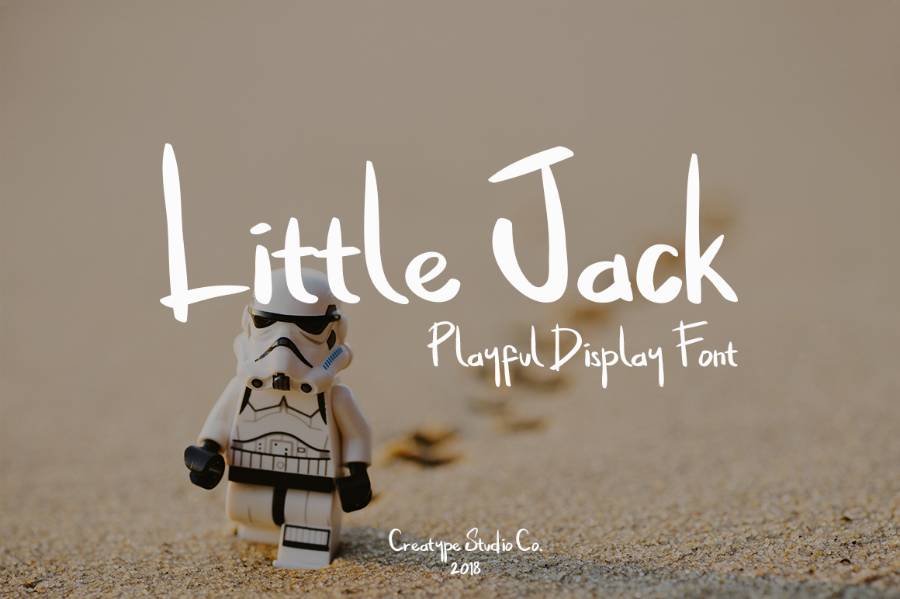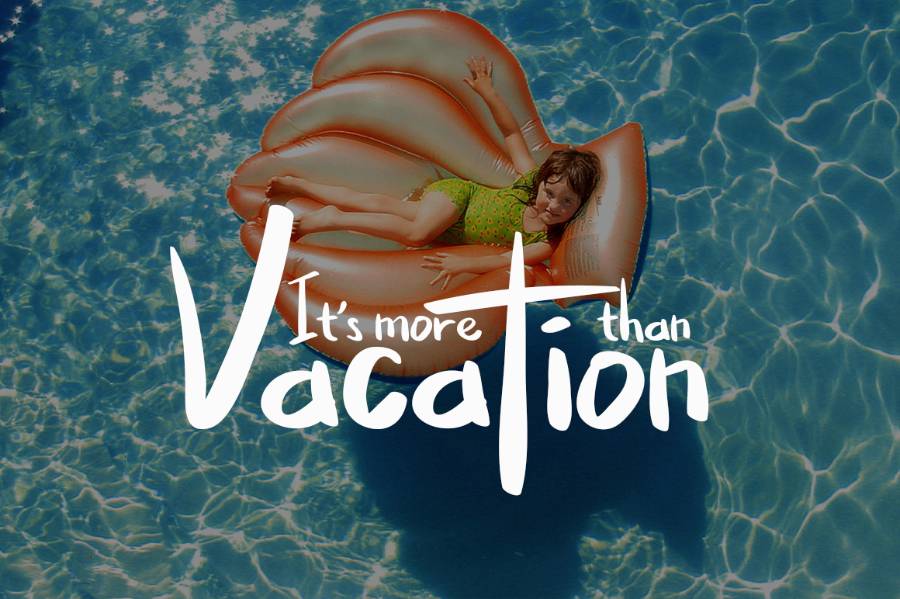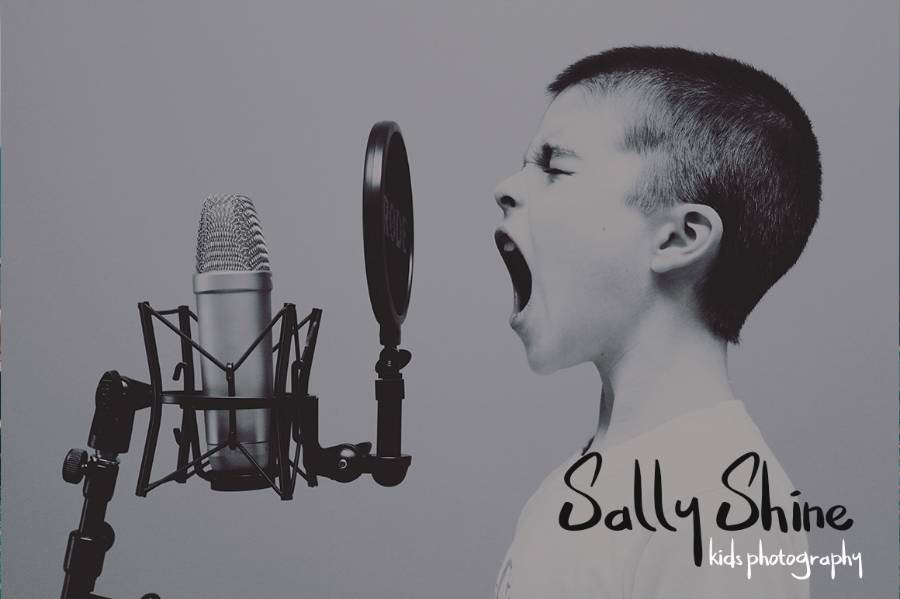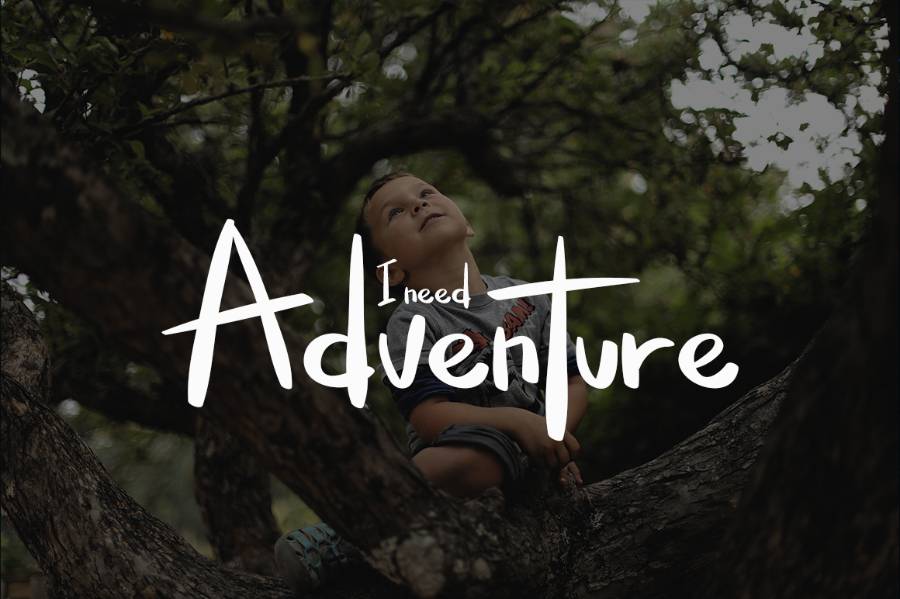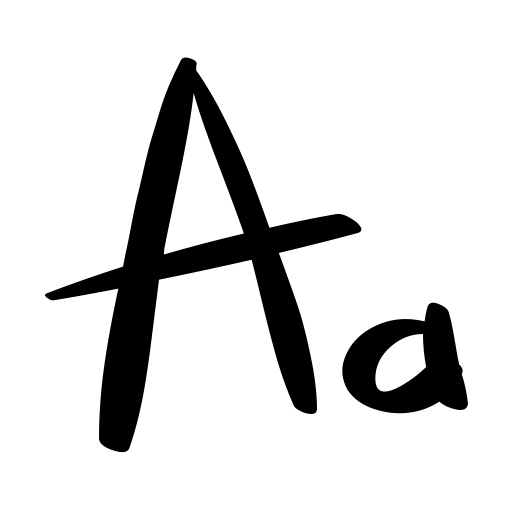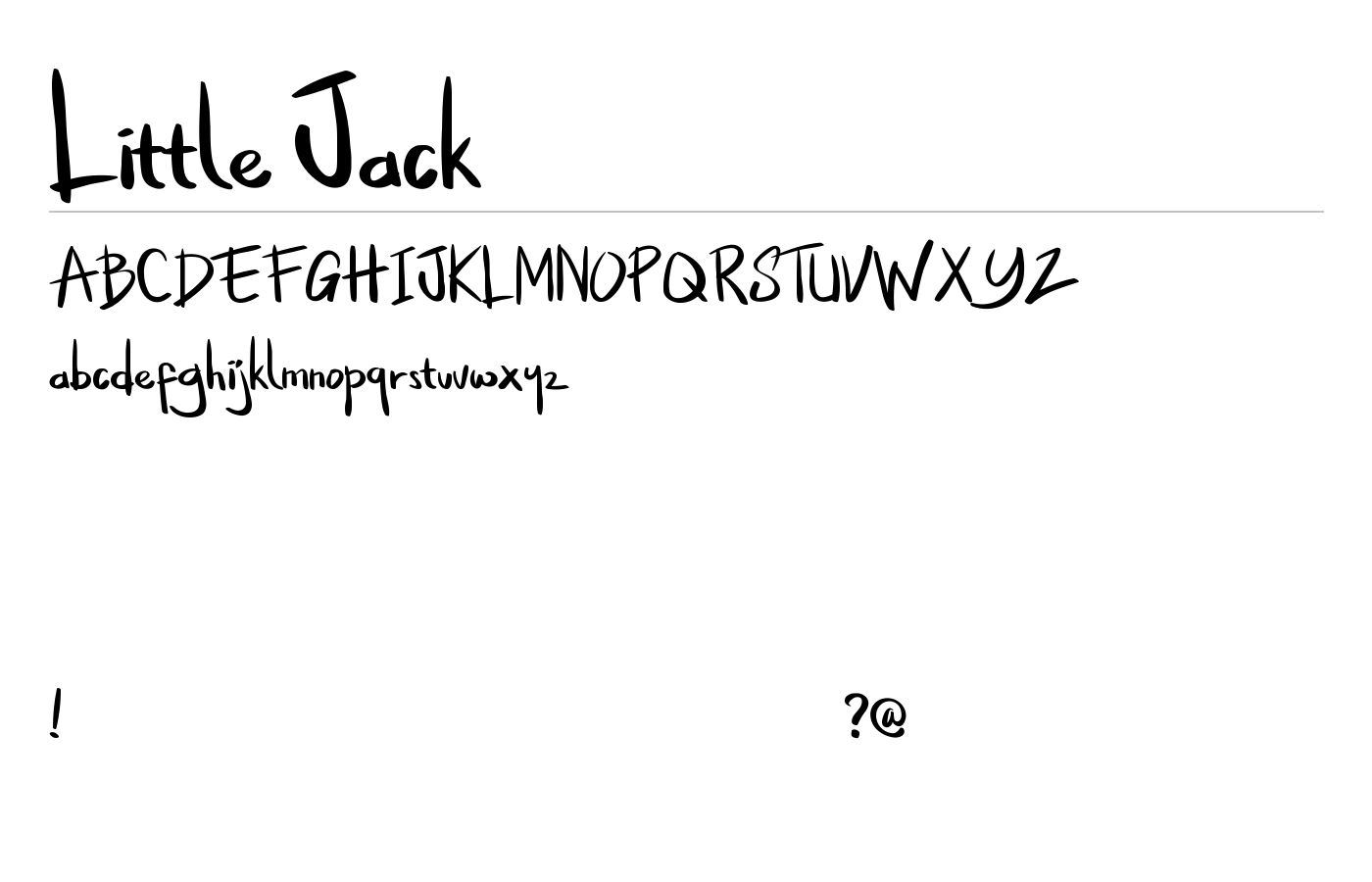
Little Jack is a casual, hand-drawn script font with a playful and friendly character. Its irregular strokes and lively letterforms give it an informal, personal feel, making it ideal for creative projects, children’s materials, and laid-back branding. This font works best in headlines, logos, and designs where a warm, approachable tone is desired.
Little Jack Font Demo
About Little Jack Font Demo